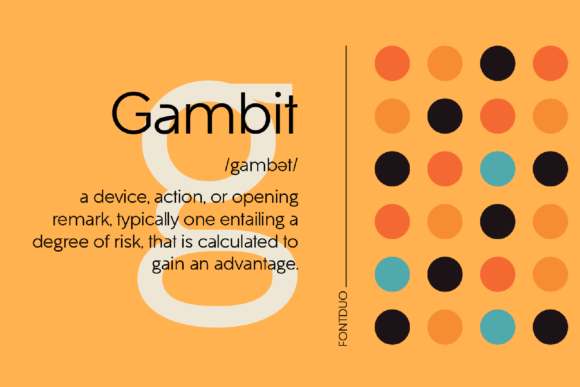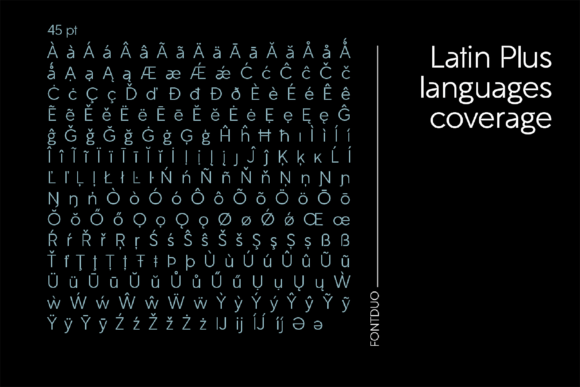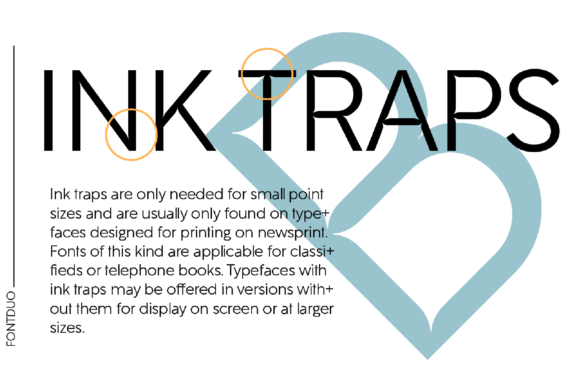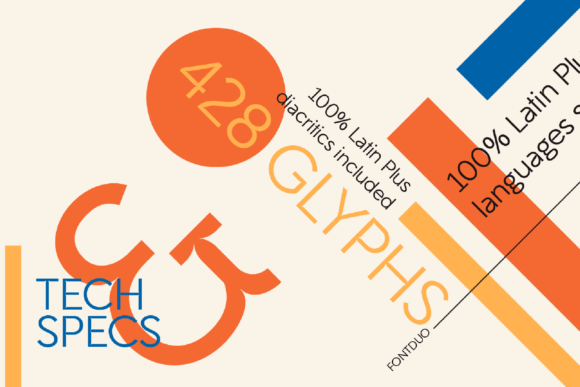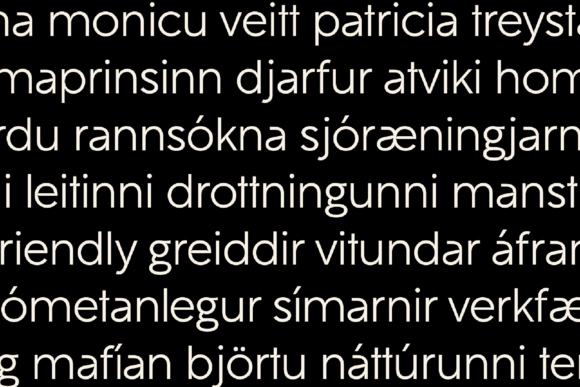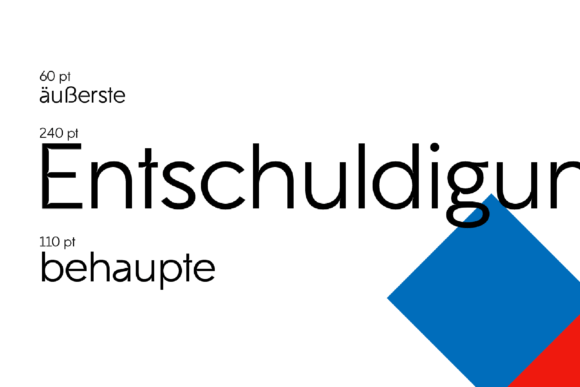
Introduction to Gambit Fd Neue Font
Gambit FD Neue is a classic, geometric sans serif font.
Incredibly versatile, this font will suit a wide pool of design ideas .
Key Features of Gambit Fd Neue Font